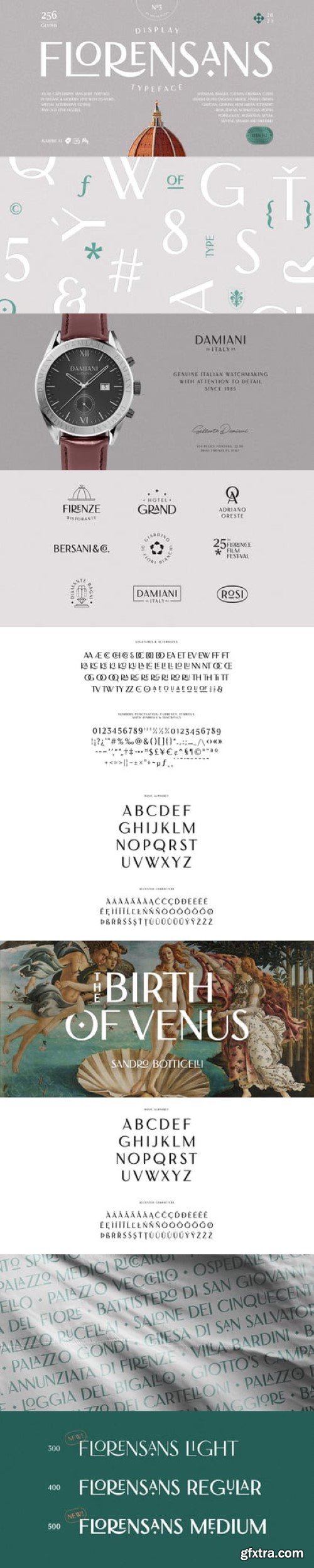
法兰诺桑斯字体家族
Florensans is a striking display sans-serif typeface designed to make a bold statement with its elegant and modern style. Featuring all caps letterforms, Florensans exudes sophistication and refinement, making it perfect for a wide range of design applications. One of the standout features of Florensans is its inclusion of ligatures, special alternative glyphs, and old-style figures, adding versatility and visual interest to the typeface. These additional characters allow designers to create unique and customized typography, enhancing the overall aesthetic of their designs. The Florensans family includes three carefully crafted weights: Light, Regular, and Medium. This range of weights offers flexibility and allows designers to choose the perfect style to suit their specific project needs. Whether used for headlines, headers, logos, labels, packaging, postcards, presentations, magazines, invitations, or any other design application, Florensans delivers a timeless and sophisticated look. Its clean lines, balanced proportions, and attention to detail ensure readability and impact, while its modern design elements add a touch of contemporary flair. Overall, Florensans is a versatile and stylish typeface that offers designers endless possibilities for creating captivating and memorable designs. With its elegant style and comprehensive features, Florensans is sure to elevate any design project to new heights of sophistication and refinement.